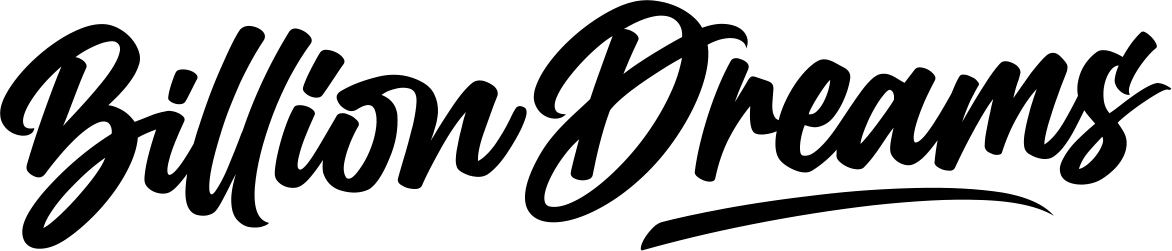
Billion Dreams Font
Brought to you with an impressive design, Billion Dreams features a curly structure and takes on an elegant cursive outline as soon as its characters are stacked together, thus leading to less readable text.
But then again, it’s the aesthetic looks that really matter, isn’t that so? So get your hand on this calligraphy font right away if you care about delivering first-class artwork like a wedding card, T-shirt, sign, banner, or else.